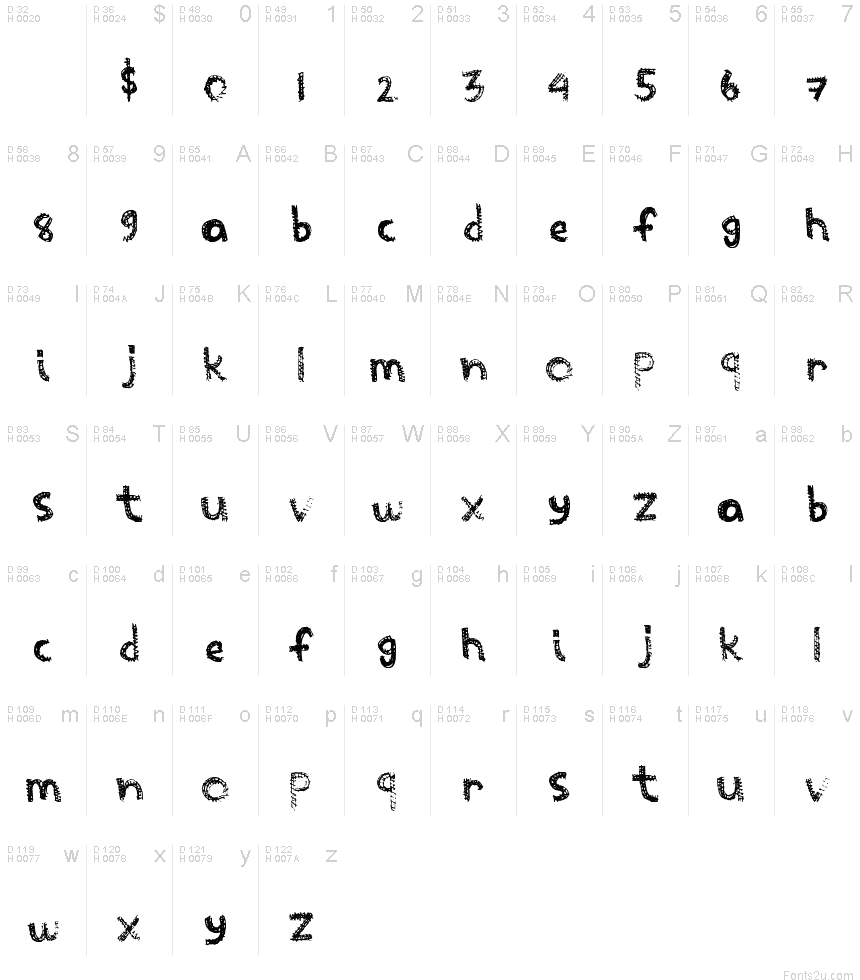
Scratch This from Xerographer Fonts is a free decorative display font with squat, rounded letters and a restless scratched surface. Irregular edges and scattered white cuts make the strokes resemble ink worked over with a dry, damaged tool. The texture is deliberately unruly.
For punk show posters and skate merchandise, that battered drawing gives even simple wording the force of handmade artwork, yet it can also suit horror-comedy packaging and underground magazine covers. Its rough humor and dense, doodled marks will appeal most to youth labels, independent music promoters, and publishers after a deliberately scrappy look.
Scratch This was created by Xerographer Fonts in 2012. It is a free decorative display font.